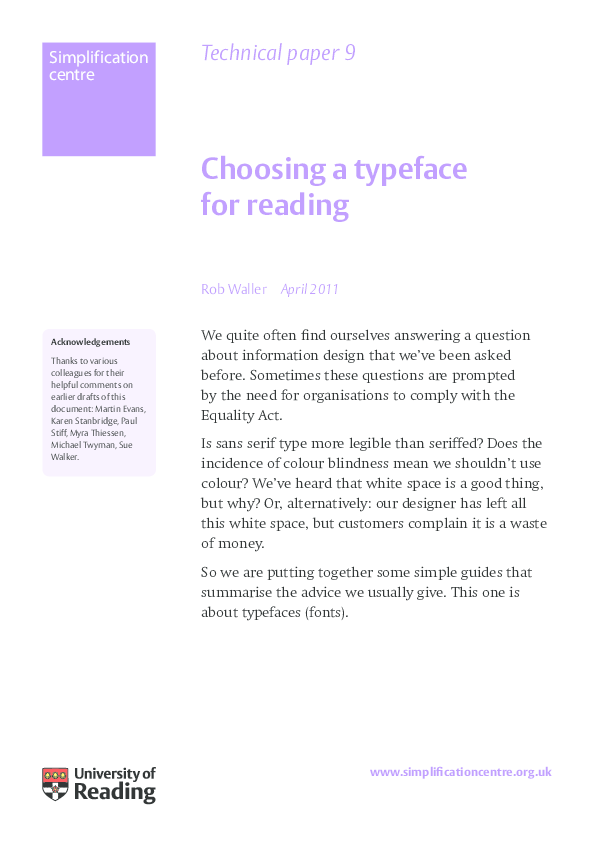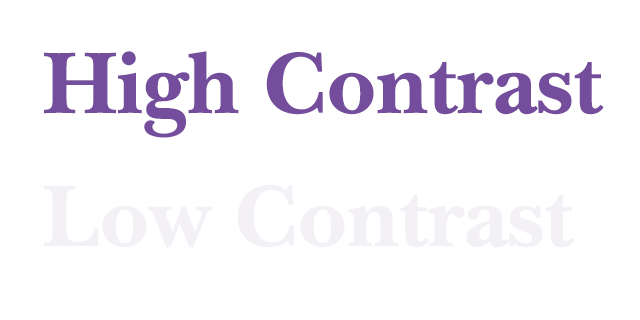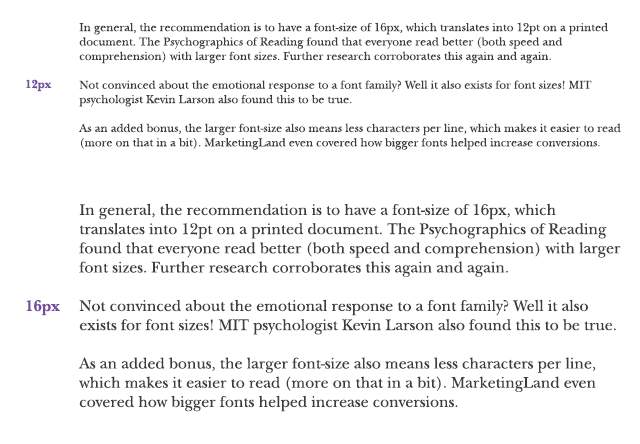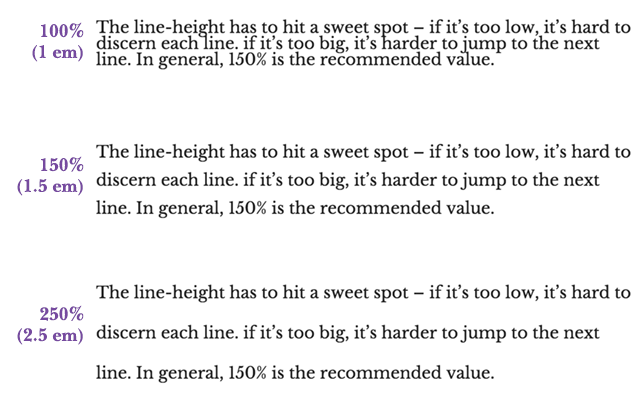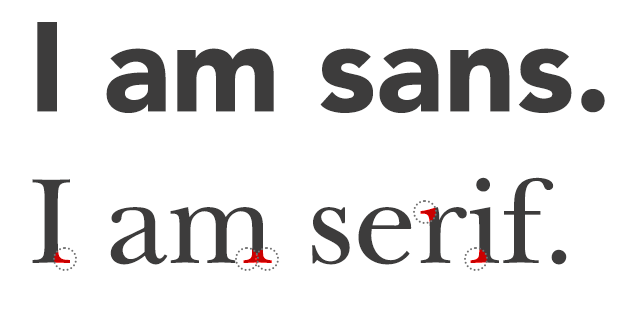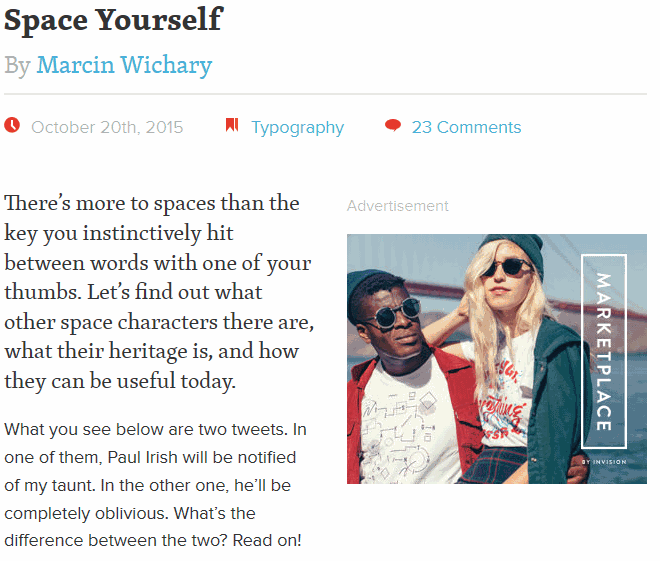
Creativefabrica Serif Font Easier To Read Creativefabrica. San serif vs serif fonts (san serif does not have the lines, serif does.) search those two names and you will see examples. As others have noted, it really depends on the application and the amount of copy. I've also seen studies that definitivly prove each case. Old style, transitional, and modern. A rule of thumb is a san serif font is normally easier for a machine to read but serif fonts are more comfortable for a person to read. Serif fonts have extra strokes or designs on the letters, while sans serif fonts don't have these details. For a good read that shows you how well serif fonts look on paper, check out our list of 7 easiest dickens novel to read first. Serif fonts are ever so slightly harder to read because they have little feet on them. I've been caught in this debate before trying to defend one type style vs. Consider the easiest font to read when designing your website. For most adults reading a book, the difference between sans serif and serif fonts it's. This lack of feet makes sans serif fonts a bit easier to read, as your brain has to process less visual information. The font you select conveys your business identity to customers and prospects. Look at the first three families: Example of a serif font.
Pdf Choosing A Typeface For Reading Rob Waller Academia Edu. For most adults reading a book, the difference between sans serif and serif fonts it's. I've been caught in this debate before trying to defend one type style vs. Consider the easiest font to read when designing your website. San serif vs serif fonts (san serif does not have the lines, serif does.) search those two names and you will see examples. The font you select conveys your business identity to customers and prospects. This lack of feet makes sans serif fonts a bit easier to read, as your brain has to process less visual information. A rule of thumb is a san serif font is normally easier for a machine to read but serif fonts are more comfortable for a person to read. For a good read that shows you how well serif fonts look on paper, check out our list of 7 easiest dickens novel to read first. I've also seen studies that definitivly prove each case. As others have noted, it really depends on the application and the amount of copy. Example of a serif font. Serif fonts have extra strokes or designs on the letters, while sans serif fonts don't have these details. Old style, transitional, and modern. Look at the first three families: Serif fonts are ever so slightly harder to read because they have little feet on them.
If chosen correctly, it can improve the overall aesthetic of your page and allows visitors to read the content easier. It's not that these fonts are inherently accessible, but most users who have difficulty with the research is not conclusive as to whether serif or sans serif typefaces are easier to read. Many typography experts believe serif fonts are more legible in print and sans serif fonts are easier to read on computer screens. For most adults reading a book, the difference between sans serif and serif fonts it's. Serifs are the small finishing strokes on the end of a character. Midline font duo is a two different font styles : So it increases the readability of the design. Serif fonts have been used quite a bit over time, because serifs create an imaginary line at the top and bottom of the text, making it easier to read. Spacing is even easier to manipulate with modern computerised typesetting equipment. Archive of freely downloadable fonts. In this article, we'll give you the 20 best html fonts! I've also seen studies that definitivly prove each case. Serif fonts have extra strokes or designs on the letters, while sans serif fonts don't have these details. San serif vs serif fonts (san serif does not have the lines, serif does.) search those two names and you will see examples. The font you select conveys your business identity to customers and prospects. Sans serif fonts, as you might already know, are the fonts with no projecting lines at the ends. Serif fonts are used for body text because they are very easy to read. The serifs purportedly serve as aids to the eye, moving you from one. Choose any font like open sans or droid serif or lato. As others have noted, it really depends on the application and the amount of copy. Arvo, museo slab, and rockwell. I've been caught in this debate before trying to defend one type style vs. But if you carelessly pick a random and inappropriate font, it might. So a sans serif paired with an old style font will have an aged and classic feel; If chosen correctly, it can improve the overall aesthetic of your page and allows visitors to read the content easier. Download the best free serif fonts that are hand picked collections by our editorial experts and can be used on mac, pc, website. This lack of feet makes sans serif fonts a bit easier to read, as your brain has to process less visual information. It's the easiest for most people to read (with or without glasses) and the machines like them, too. Consider the easiest font to read when designing your website. But on the upside, it is an easy font for dyslexic people to read. 1 2 3 4 5 6 7 8 9 10.
The Best Fonts To Use In Print Online And Email. Example of a serif font. I've also seen studies that definitivly prove each case. The font you select conveys your business identity to customers and prospects. San serif vs serif fonts (san serif does not have the lines, serif does.) search those two names and you will see examples. For most adults reading a book, the difference between sans serif and serif fonts it's. A rule of thumb is a san serif font is normally easier for a machine to read but serif fonts are more comfortable for a person to read. As others have noted, it really depends on the application and the amount of copy. Consider the easiest font to read when designing your website. Old style, transitional, and modern. This lack of feet makes sans serif fonts a bit easier to read, as your brain has to process less visual information. Look at the first three families: I've been caught in this debate before trying to defend one type style vs. Serif fonts are ever so slightly harder to read because they have little feet on them. Serif fonts have extra strokes or designs on the letters, while sans serif fonts don't have these details. For a good read that shows you how well serif fonts look on paper, check out our list of 7 easiest dickens novel to read first.
They started being widely used during the 1920s bauhaus movement.
30 Incredibly Readable Serif Fonts For Your Next Web Design Project Elegant Themes Blog. Serif fonts have extra strokes or designs on the letters, while sans serif fonts don't have these details. Serif fonts are ever so slightly harder to read because they have little feet on them. Look at the first three families: For a good read that shows you how well serif fonts look on paper, check out our list of 7 easiest dickens novel to read first. For most adults reading a book, the difference between sans serif and serif fonts it's. Example of a serif font. A rule of thumb is a san serif font is normally easier for a machine to read but serif fonts are more comfortable for a person to read. Consider the easiest font to read when designing your website. This lack of feet makes sans serif fonts a bit easier to read, as your brain has to process less visual information. The font you select conveys your business identity to customers and prospects. I've also seen studies that definitivly prove each case. I've been caught in this debate before trying to defend one type style vs. Old style, transitional, and modern. As others have noted, it really depends on the application and the amount of copy. San serif vs serif fonts (san serif does not have the lines, serif does.) search those two names and you will see examples.
Sans serif fonts, then, are the ones that don't have these ornamental lines in them.
30 Incredibly Readable Serif Fonts For Your Next Web Design Project Elegant Themes Blog. This lack of feet makes sans serif fonts a bit easier to read, as your brain has to process less visual information. As others have noted, it really depends on the application and the amount of copy. Look at the first three families: Serif fonts are ever so slightly harder to read because they have little feet on them. I've been caught in this debate before trying to defend one type style vs. For most adults reading a book, the difference between sans serif and serif fonts it's. Old style, transitional, and modern. A rule of thumb is a san serif font is normally easier for a machine to read but serif fonts are more comfortable for a person to read. Example of a serif font. Serif fonts have extra strokes or designs on the letters, while sans serif fonts don't have these details. I've also seen studies that definitivly prove each case. The font you select conveys your business identity to customers and prospects. For a good read that shows you how well serif fonts look on paper, check out our list of 7 easiest dickens novel to read first. Consider the easiest font to read when designing your website. San serif vs serif fonts (san serif does not have the lines, serif does.) search those two names and you will see examples.
A rule of thumb is a san serif font is normally easier for a machine to read but serif fonts are more comfortable for a person to read.
9 Easiest Fonts To Read On Posters Business Cards More Banana Print. The font you select conveys your business identity to customers and prospects. As others have noted, it really depends on the application and the amount of copy. Serif fonts are ever so slightly harder to read because they have little feet on them. I've also seen studies that definitivly prove each case. Consider the easiest font to read when designing your website. For a good read that shows you how well serif fonts look on paper, check out our list of 7 easiest dickens novel to read first. I've been caught in this debate before trying to defend one type style vs. Example of a serif font. A rule of thumb is a san serif font is normally easier for a machine to read but serif fonts are more comfortable for a person to read. San serif vs serif fonts (san serif does not have the lines, serif does.) search those two names and you will see examples. For most adults reading a book, the difference between sans serif and serif fonts it's. Serif fonts have extra strokes or designs on the letters, while sans serif fonts don't have these details. Look at the first three families: Old style, transitional, and modern. This lack of feet makes sans serif fonts a bit easier to read, as your brain has to process less visual information.
Sans serif fonts don't have small strokes attached to their letters, giving them a cleaner and more modern style.
Best Fonts For Reading Online Thrive Design. The font you select conveys your business identity to customers and prospects. San serif vs serif fonts (san serif does not have the lines, serif does.) search those two names and you will see examples. A rule of thumb is a san serif font is normally easier for a machine to read but serif fonts are more comfortable for a person to read. Old style, transitional, and modern. Example of a serif font. For most adults reading a book, the difference between sans serif and serif fonts it's. I've been caught in this debate before trying to defend one type style vs. For a good read that shows you how well serif fonts look on paper, check out our list of 7 easiest dickens novel to read first. I've also seen studies that definitivly prove each case. As others have noted, it really depends on the application and the amount of copy. Serif fonts have extra strokes or designs on the letters, while sans serif fonts don't have these details. Look at the first three families: Consider the easiest font to read when designing your website. This lack of feet makes sans serif fonts a bit easier to read, as your brain has to process less visual information. Serif fonts are ever so slightly harder to read because they have little feet on them.
Serif fonts are very easy to read because of the large block of text.
In the image below, you can see two fonts that are frequently billed as among the web's in print design, we're told that serif fonts are considered the most readable. So a sans serif paired with an old style font will have an aged and classic feel; Serif fonts are widely considered more legible for body copy when i say widely held, i mean that the body copy of nearly every book has serifs, presumably because it is believed to be easier to read. San serif vs serif fonts (san serif does not have the lines, serif does.) search those two names and you will see examples. I've been caught in this debate before trying to defend one type style vs. Serif fonts have been used quite a bit over time, because serifs create an imaginary line at the top and bottom of the text, making it easier to read. Serif fonts are very easy to read because of the large block of text. Serifs are the small finishing strokes on the end of a character. Choose any font like open sans or droid serif or lato. Download the best free serif fonts that are hand picked collections by our editorial experts and can be used on mac, pc, website.